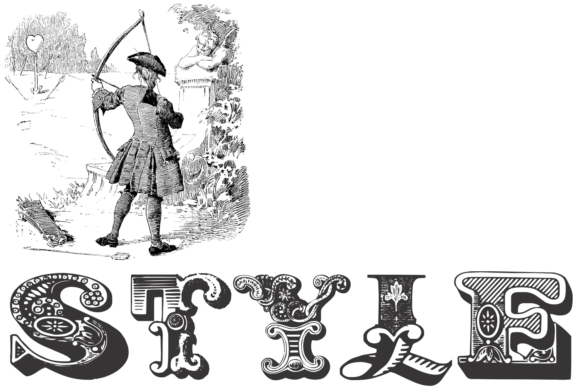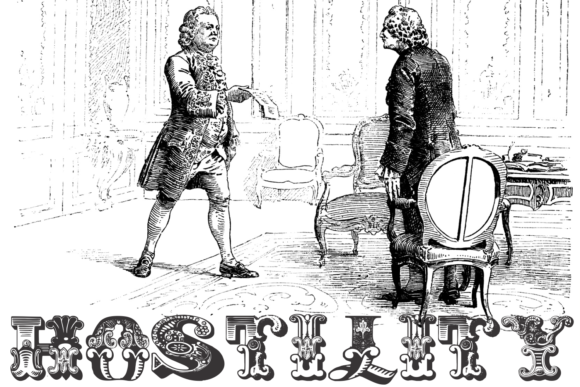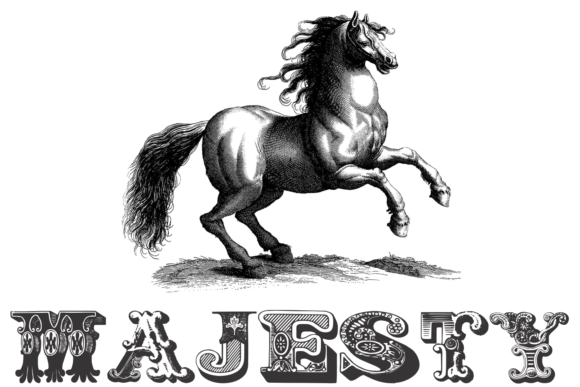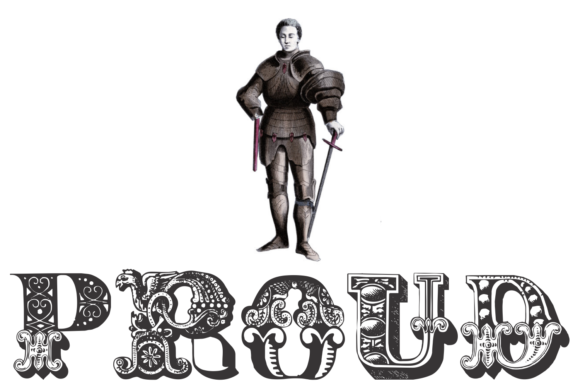
Decadence Avec Elegance Font: A Sophisticated Blend of Decorative Letter Designs
In the world of typography, few fonts manage to strike a balance between opulence and refinement. However, the Decadence Avec Elegance font achieves just that, offering a unique blend of decorative letter designs that exude both luxury and sophistication. This versatile font is perfect for designers and crafters looking to add a touch of elegance to their projects.
A Diverse and Versatile Font
The Decadence Avec Elegance font is a mix and mash of various different decorative letter designs. It’s very diverse and great for header designs, making it an excellent choice for a wide range of applications, from wedding invitations and event branding to packaging and advertising. With its eclectic blend of lettering styles, this font is sure to add a touch of personality to any design.
Key Features of Decadence Avec Elegance Font
- Unique blend of decorative letter designs: The Decadence Avec Elegance font combines different lettering styles to create a distinctive and eye-catching look.
- Diverse and versatile: This font is perfect for a wide range of applications, from headers and titles to packaging and advertising.
- Great for header designs: The Decadence Avec Elegance font is ideal for creating stunning header designs that demand attention.
- Elegant and sophisticated: This font exudes luxury and refinement, making it perfect for high-end branding and design projects.
Why Designers and Crafters Love Decadence Avec Elegance Font
Designers and crafters love the Decadence Avec Elegance font for its versatility and elegance. This font is perfect for creating stunning designs that require a touch of sophistication and luxury. Whether you’re working on a wedding invitation, a product label, or a social media graphic, the Decadence Avec Elegance font is sure to impress.
Tips for Using Decadence Avec Elegance Font
To get the most out of the Decadence Avec Elegance font, here are a few tips to keep in mind:
- Use it sparingly: While the Decadence Avec Elegance font is stunning, it’s best used sparingly to avoid overwhelming the design.
- Pair it with a simple font: Pair the Decadence Avec Elegance font with a simple, clean font to create visual interest and balance.
- Experiment with colors and textures: Don’t be afraid to experiment with different colors and textures to add depth and interest to your design.
In conclusion, the Decadence Avec Elegance font is a sophisticated and versatile font that’s perfect for designers and crafters looking to add a touch of elegance to their projects. With its unique blend of decorative letter designs, this font is sure to impress. Whether you’re working on a high-end branding project or a crafty DIY design, the Decadence Avec Elegance font is a great choice.